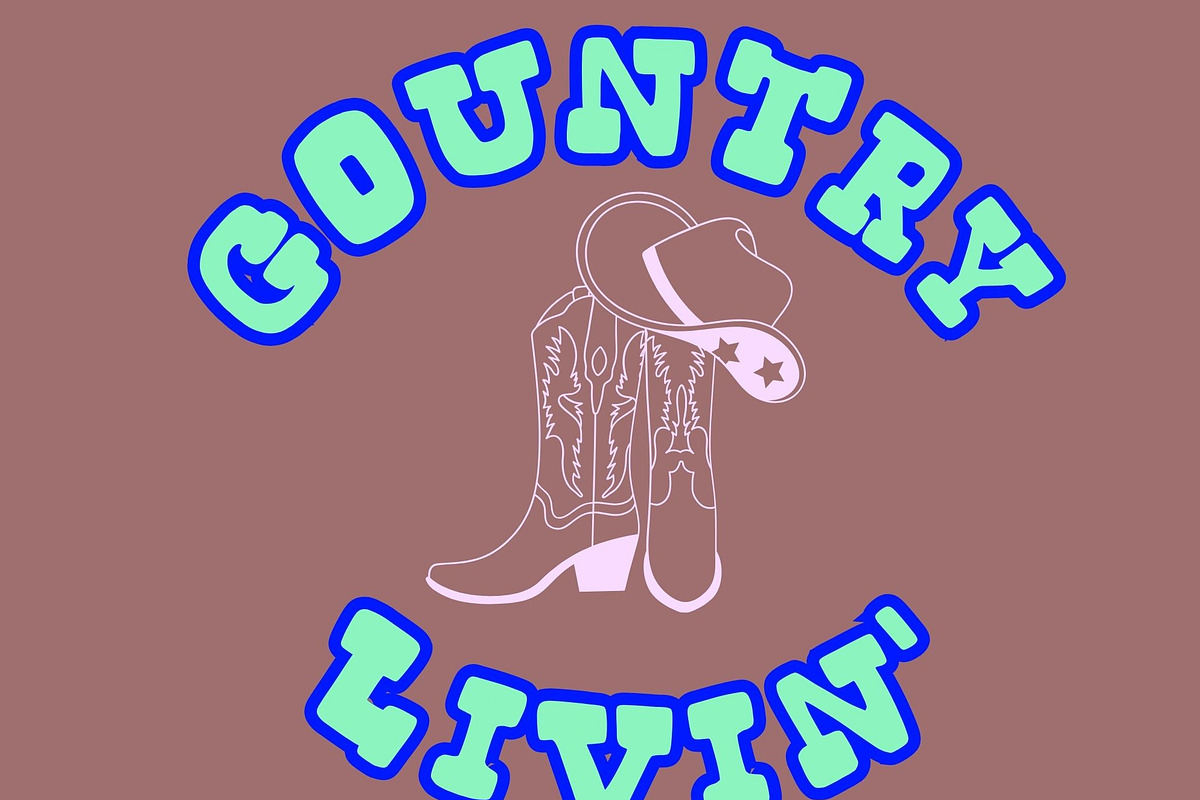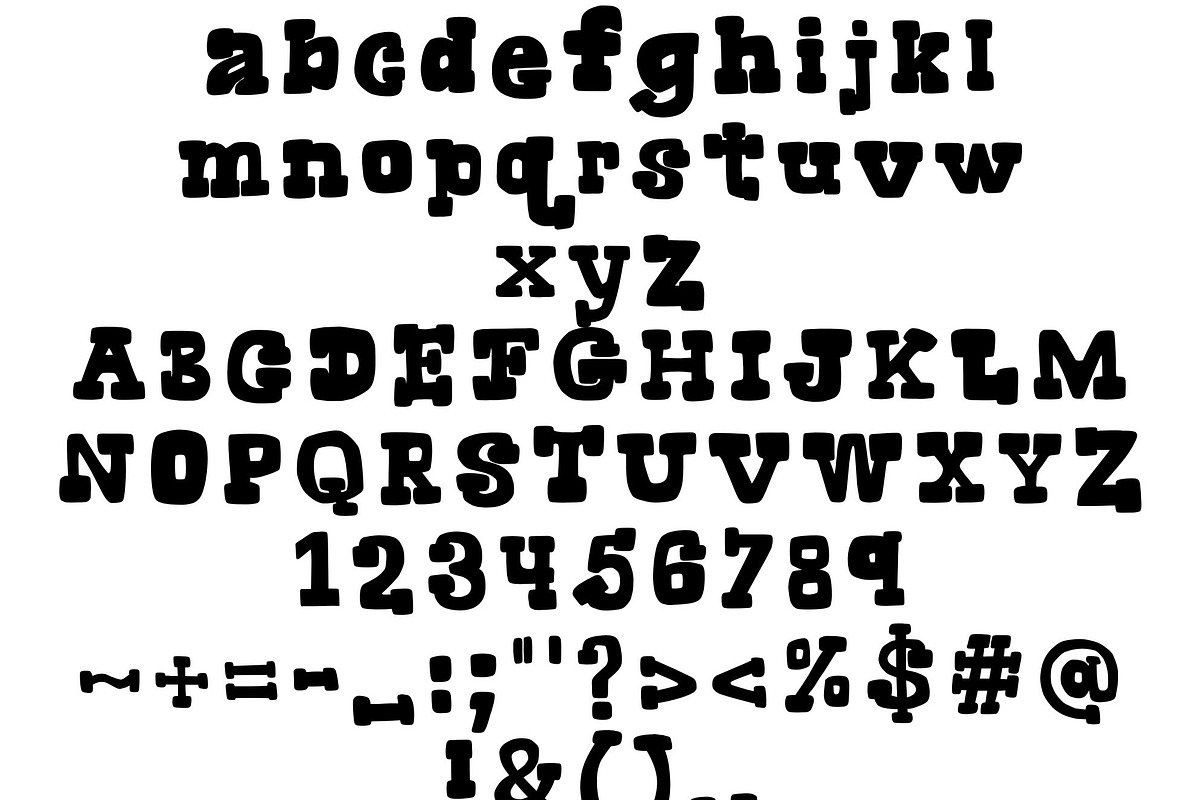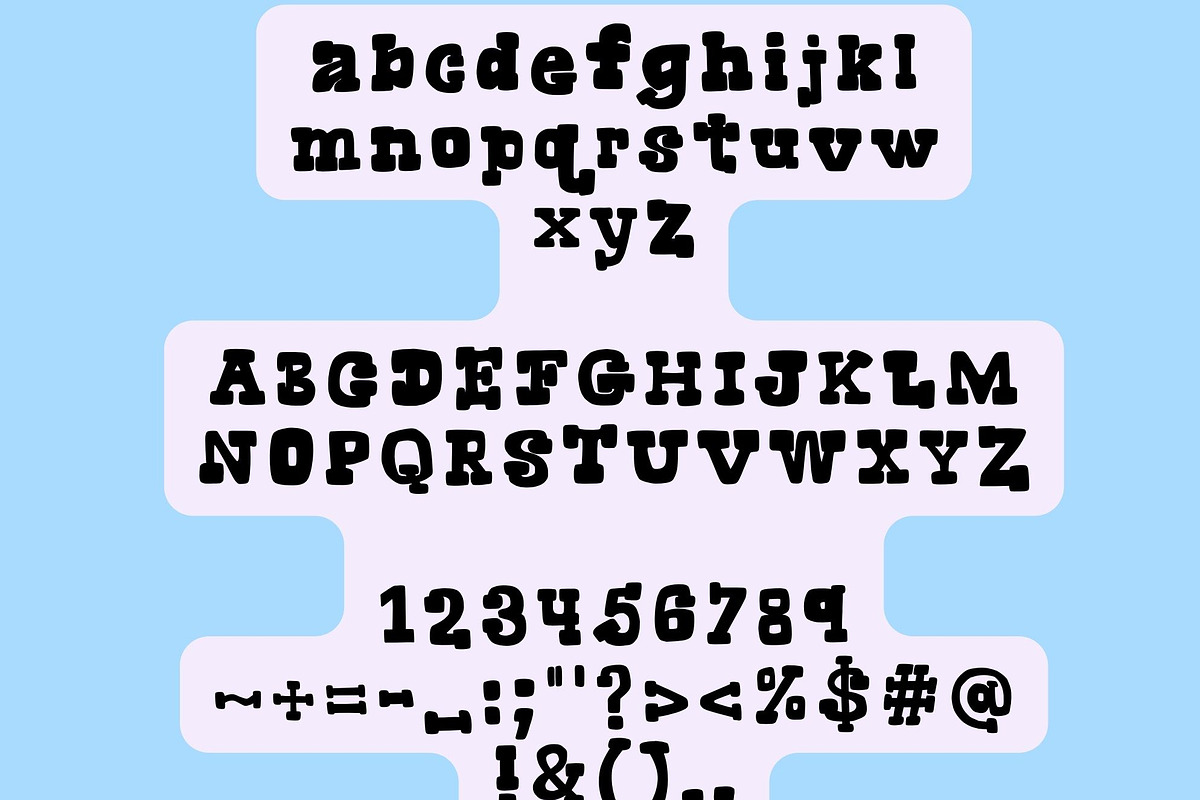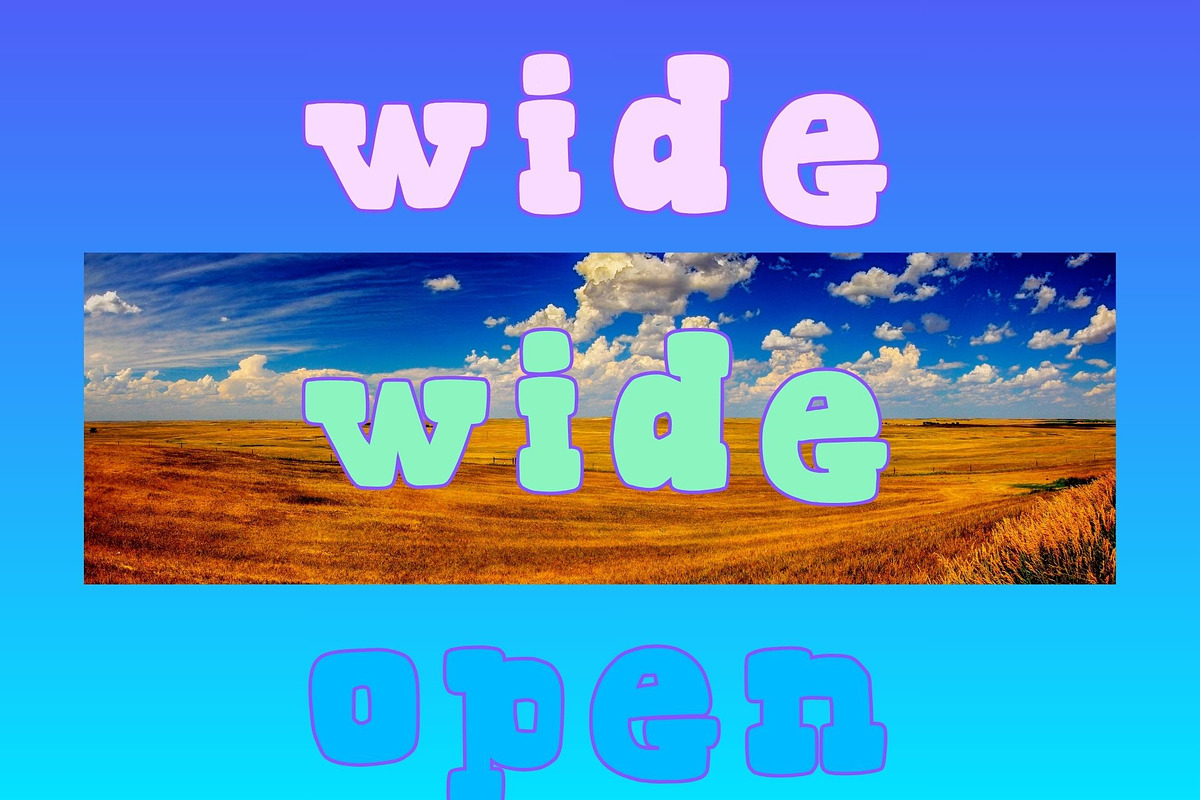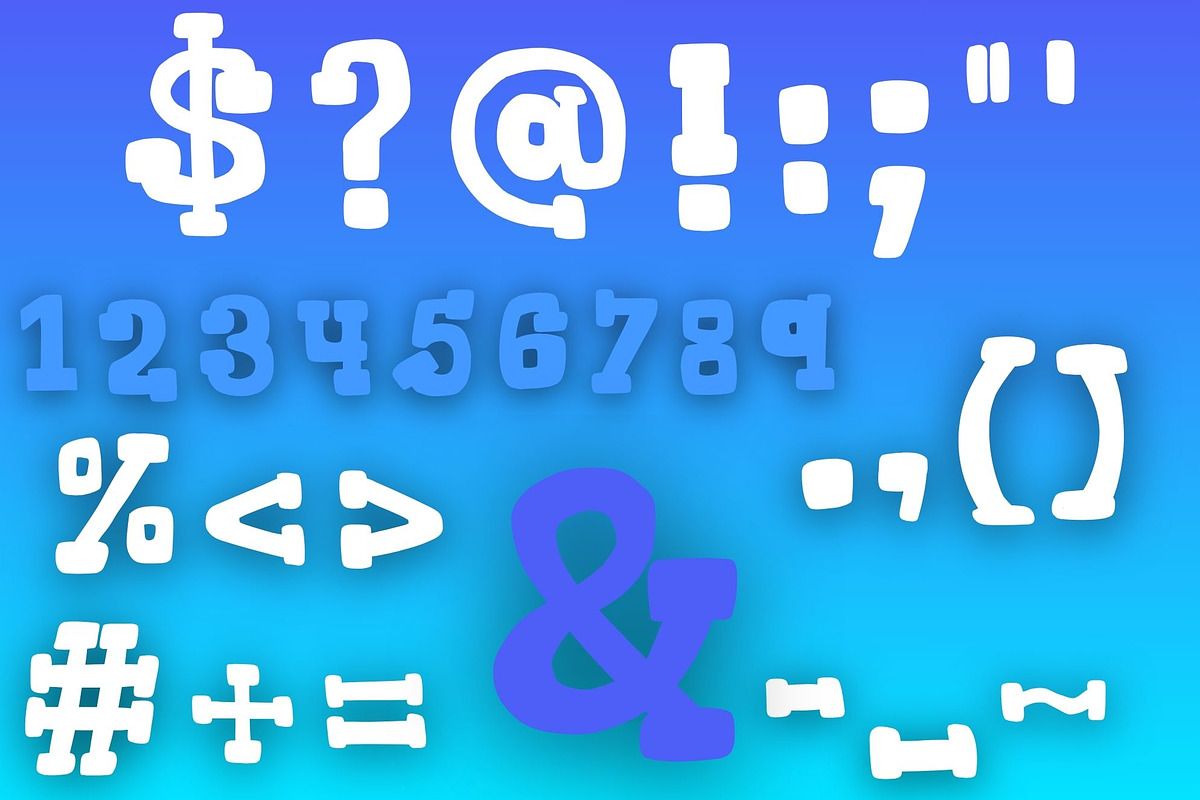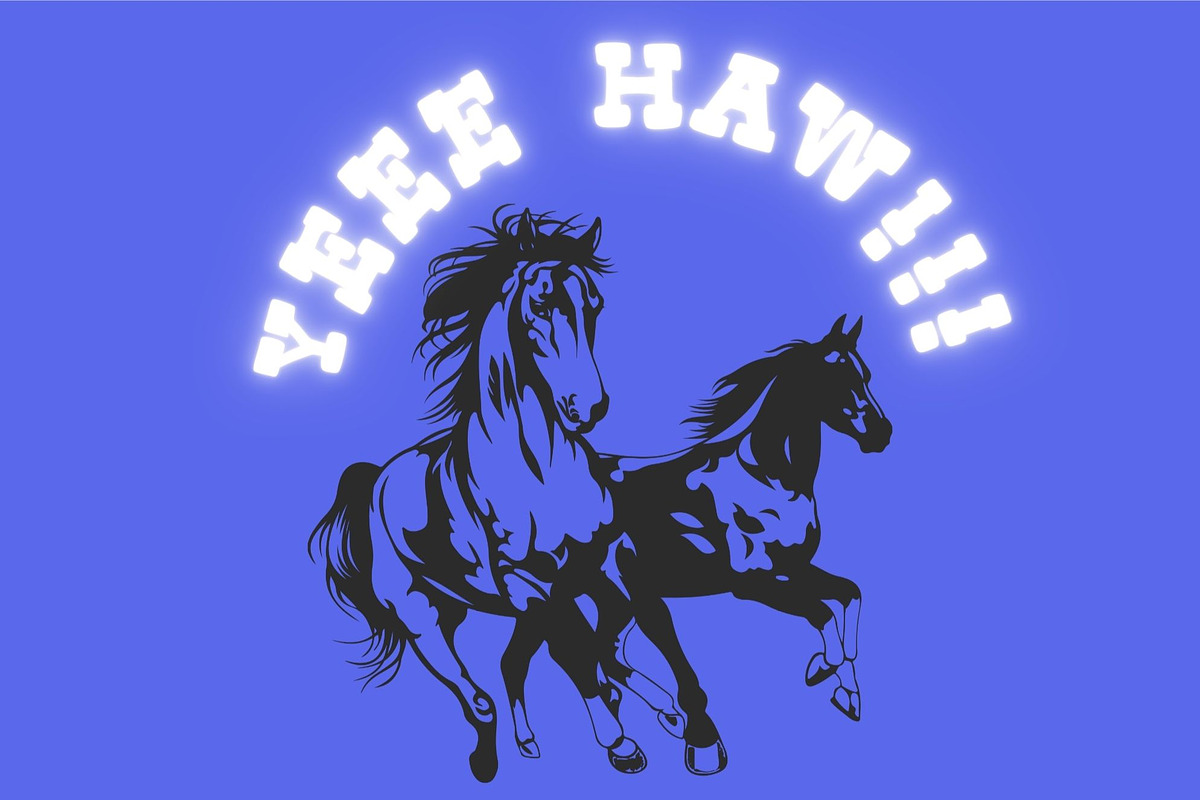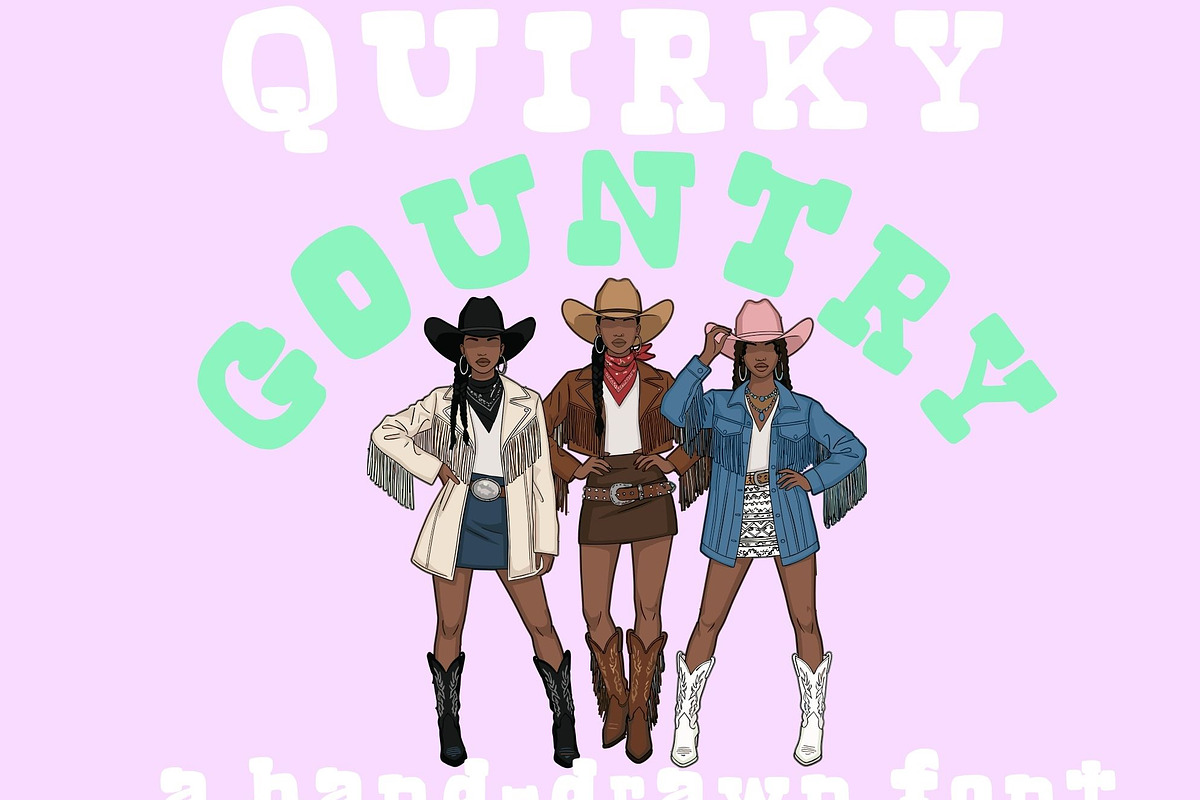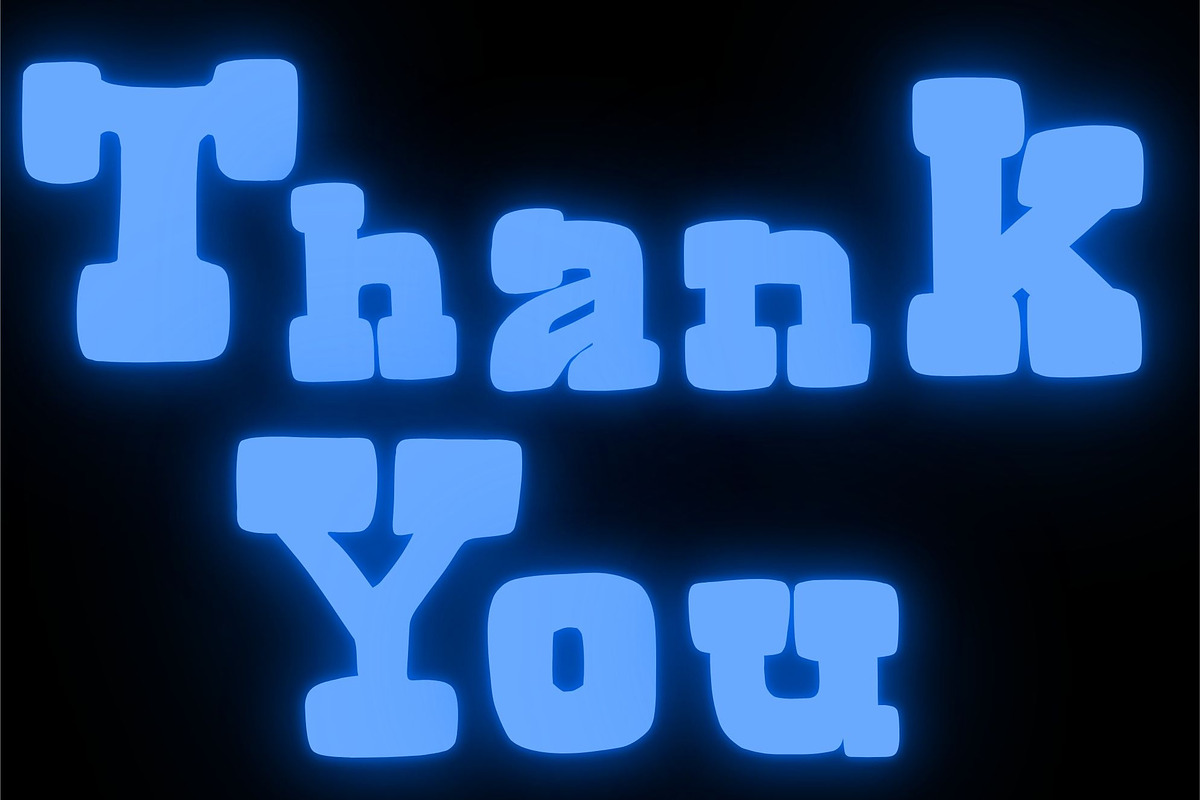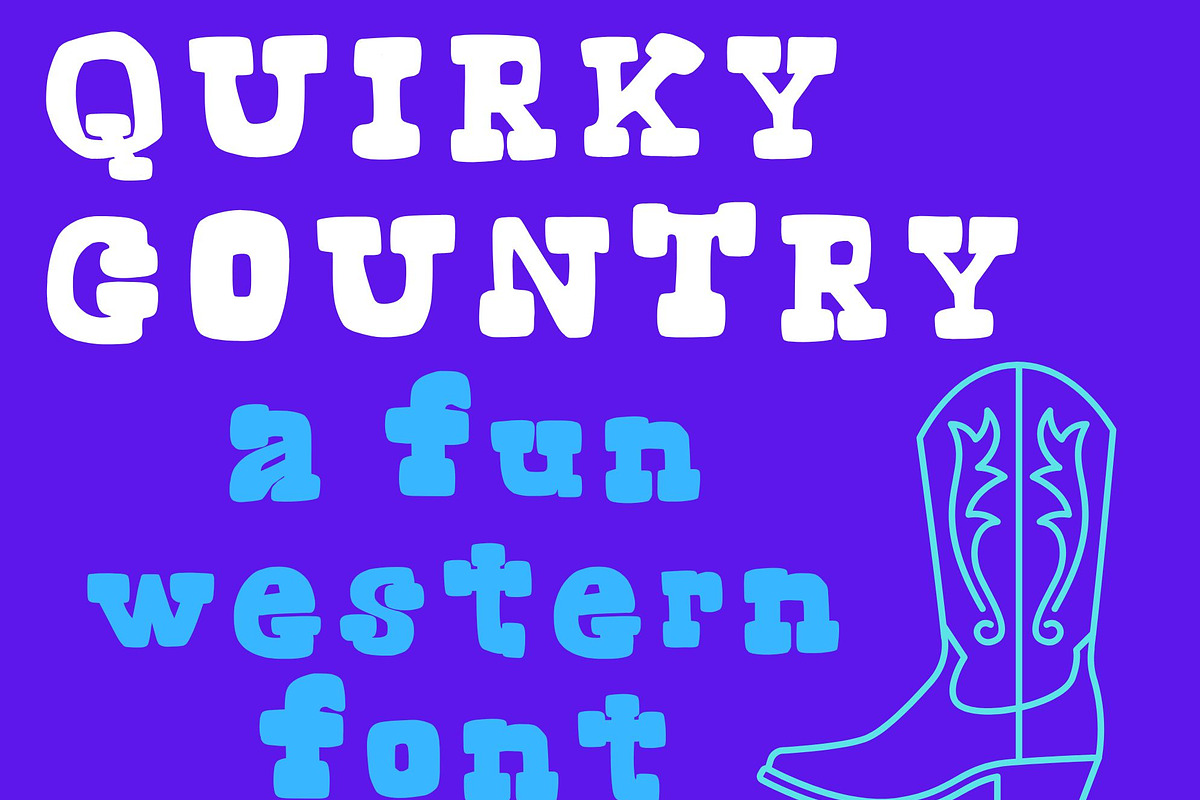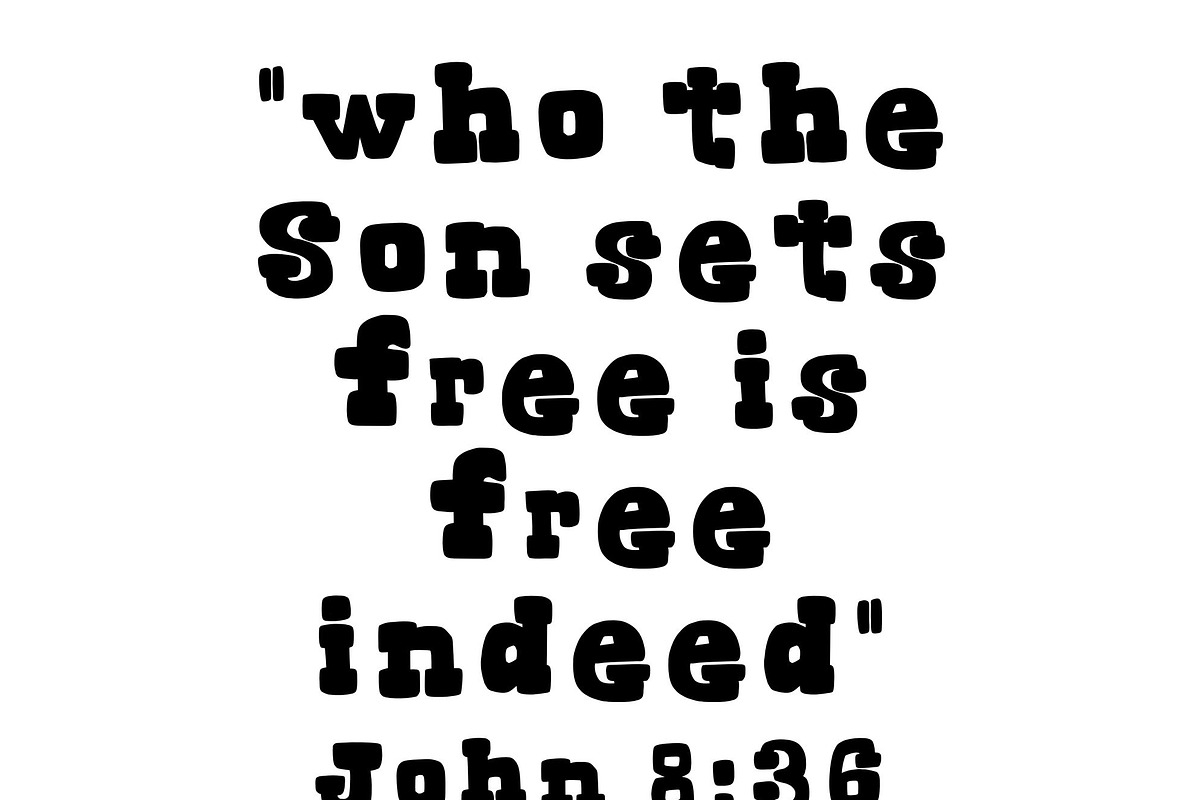
Quirky Country, a hand-drawn script
Meet Quirky country font , she's fun, funny, effortlessly cool, and doesn't take herself too seriously. She rides the ebbs and flows of life with a positive, free-spirited, yet go-getter attitude. This font is for you if you love the warmth and personality of perfectly imperfect hand-made fonts that display with a bang-bang, get-em-up, yee-haw kind of vibe. This font is great for : t-shirt design, display design, stationary design, website titles, product design , book cover design.... u name it, she's pretty versatile. Have Fun !!!
- handwritten/hand-drawn font